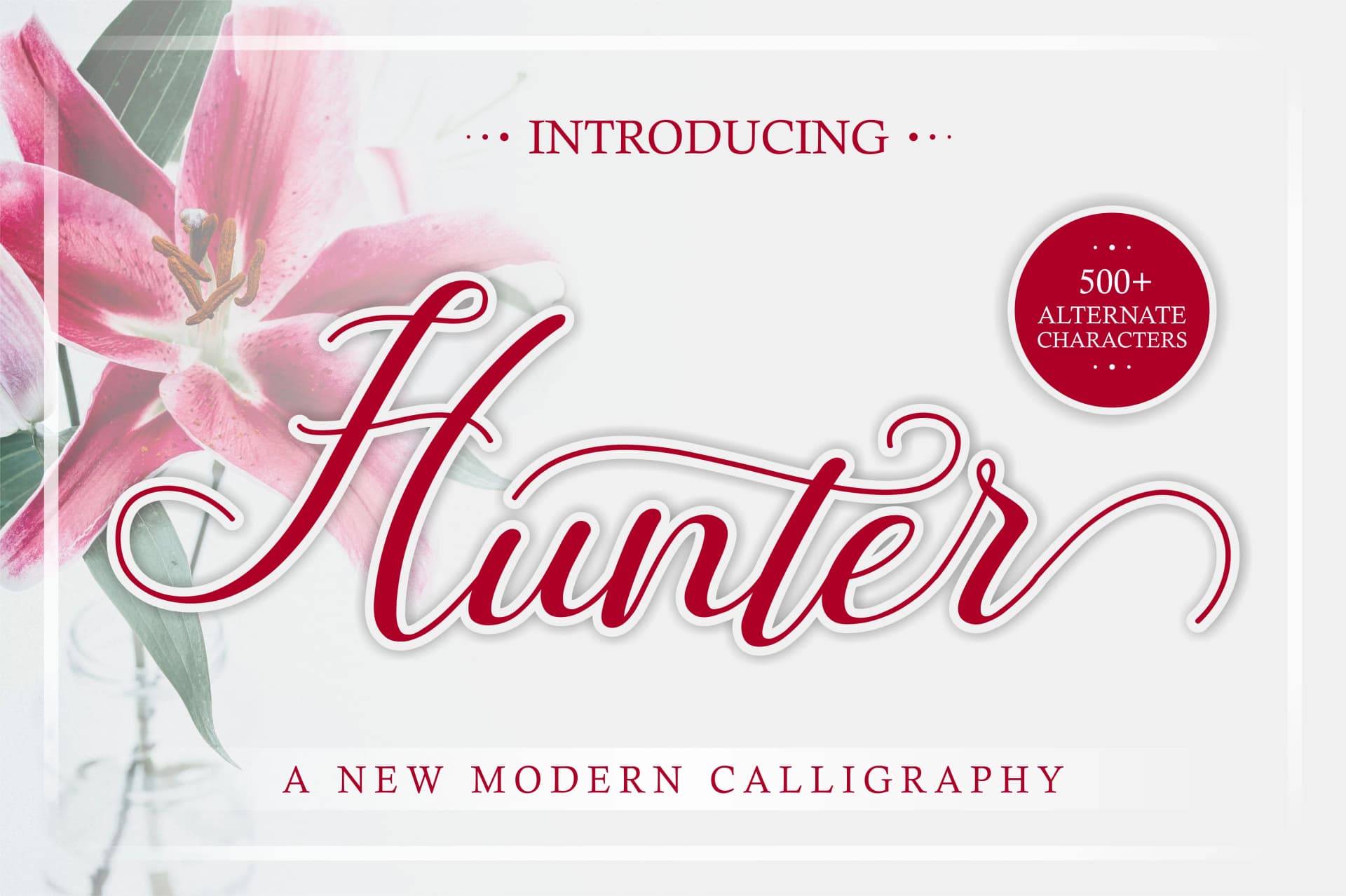
Hunter by WDfont Creative is a flowing connecting script with a gently animated baseline that captures contemporary elegance while maintaining an approachable warmth. The typeface balances clean, deliberate lines with an inherently friendly character, making it versatile for applications where personality and refinement must coexist. Its dancing letterforms suggest movement and vitality without compromising readability. This script has natural strength in wedding save-the-date cards and formal invitation suites, where its dynamic character adds expressive depth to special moments. Beyond celebrations, Hunter functions beautifully for boutique product branding and artisanal label design, particularly for handmade goods packaging, jewelry boxes, specialty candle labels, small-batch cosmetics, and artisan tea packaging all benefit from its refined personality. The typeface adapts seamlessly to personalized greeting cards, monogram applications, and custom stationery design that demands genuine individuality rather than templated solutions. Whether you're designing gallery opening announcements, hand-lettered social media content, or bespoke brand identity materials for boutiques, lifestyle businesses, and similar design ventures, Hunter delivers sophistication without pretension. This is a script that feels deliberate and intentional, rewarding designers who understand that considered restraint enhances rather than limits creative impact. Discover Hunter on Creative Fabrica and bring this refined script into your design toolkit.
Hunter Font is a script font that shines as a display or heading face. Pair it with a clean sans-serif or serif font for body text β the contrast creates a clear hierarchy while the two styles stay balanced and easy to read.
Hunter Font